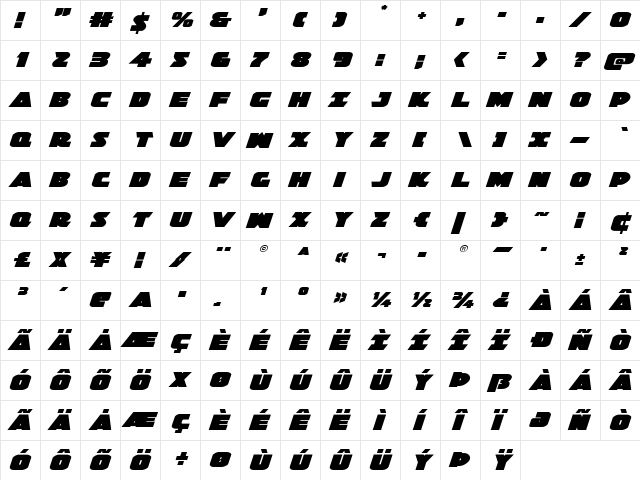
Jedi Special Forces Expanded Italic Expanded Italic
Design Context for Jedi Special Forces Expanded Italic Typeface
Jedi Special Forces Expanded Italic has the bold swagger of sports branding: strong, assertive letterforms designed to dominate headlines and jerseys alike. Its italic angle brings a sense of urgency and motion to the letterforms.
A natural choice for gym brands, fantasy sports, jersey lettering, and action-driven headlines.
Pro Tip: Use Jedi Special Forces Expanded Italic in all-caps headlines where its athletic energy can fully express itself. Pair with a solid, simple sans for supporting text.